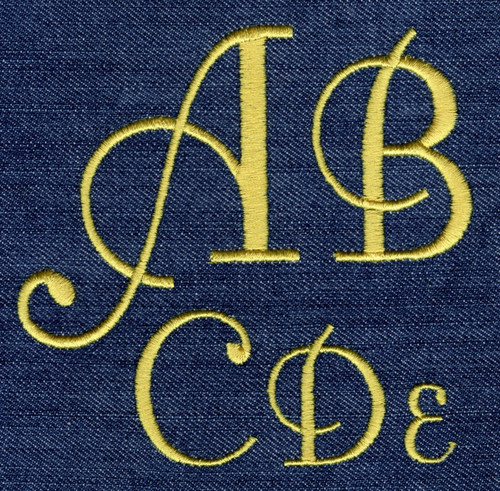
425 Fontleroy Satin Font
Fontleroy Satin Font comes in 1", 1.5", 2", 2.5" and 3" heights based on the capital "A" with all other characters sized proportionally. All sizes are finished in satin stitching and include uppercase letters, lowercase letters, numbers and four punctuation marks.